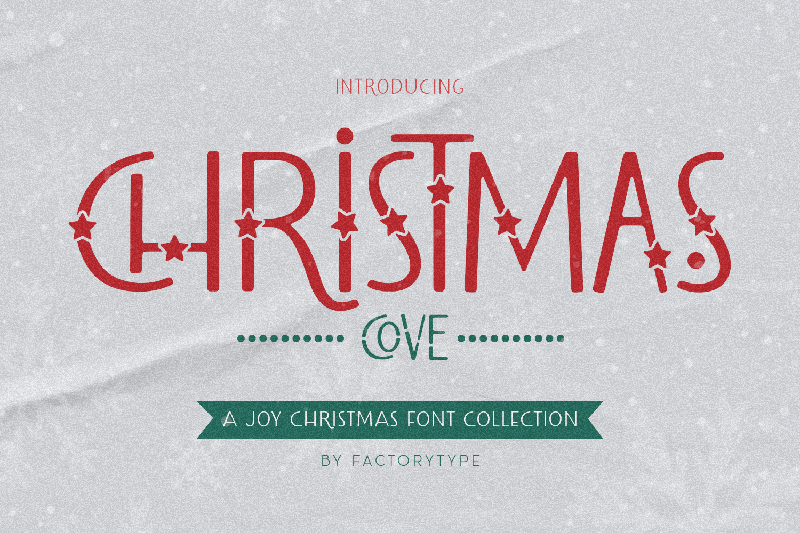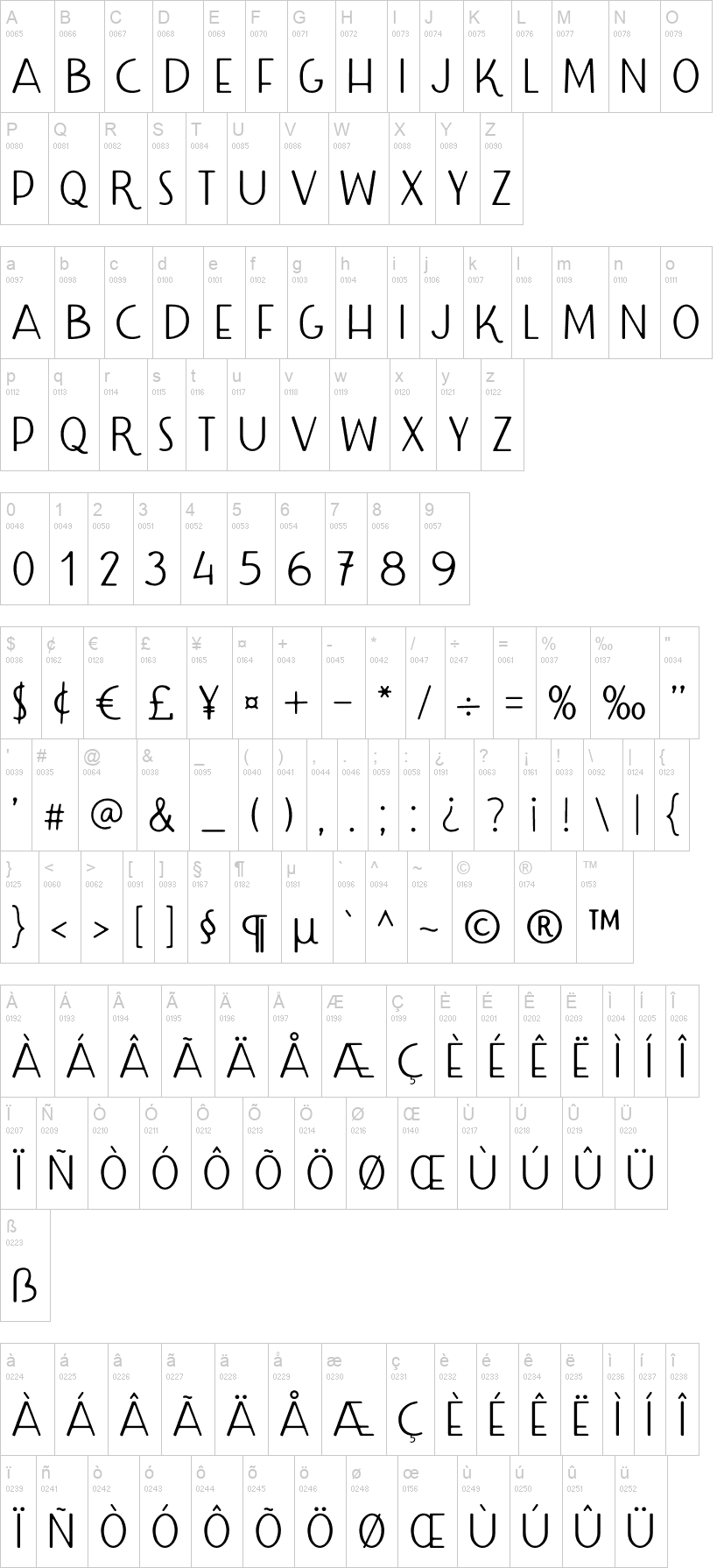
Note of the authorGet into the Christmas spirit all year round with Christmas Cove, the perfect typeface for all your holiday needs. Its completely FREE to DOWNLOAD! Dont miss out on this exciting typographic tool its all you need to make your holiday designs shine.